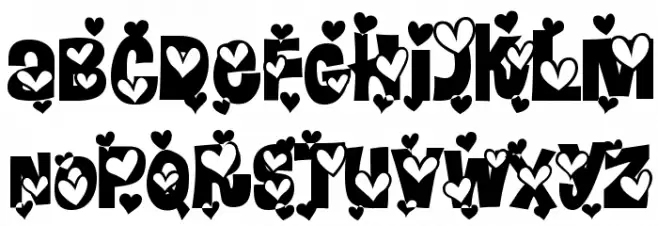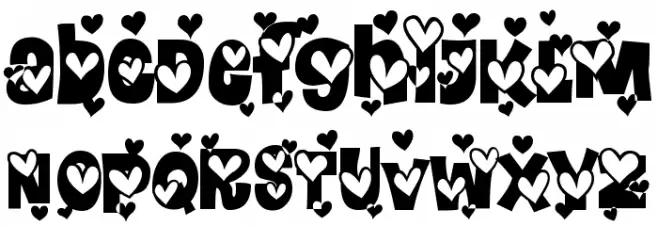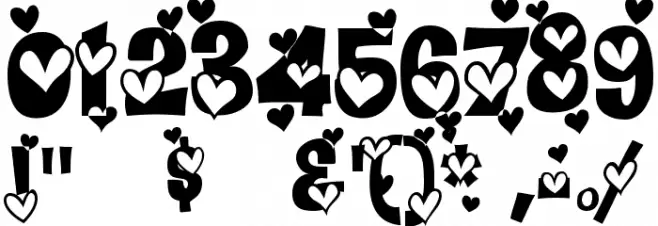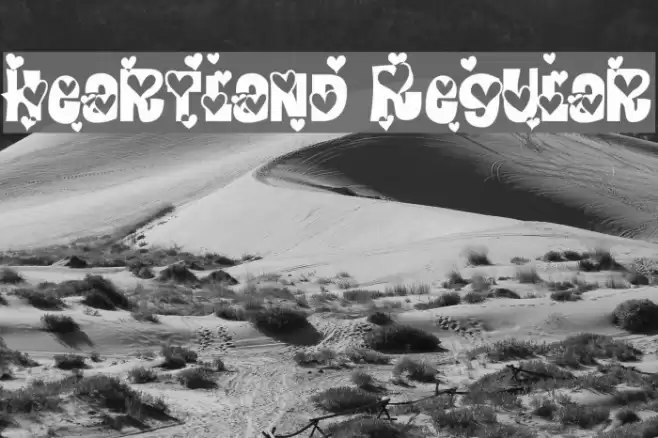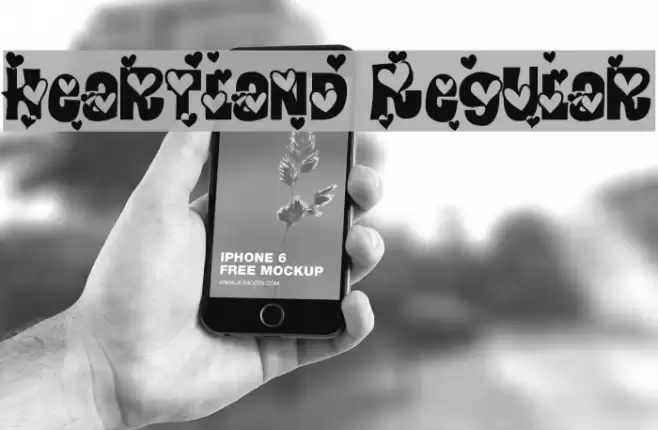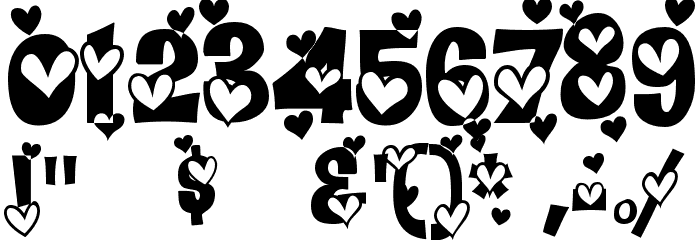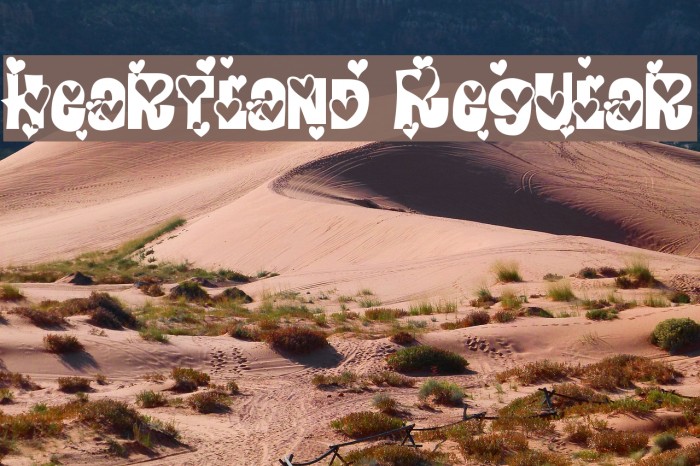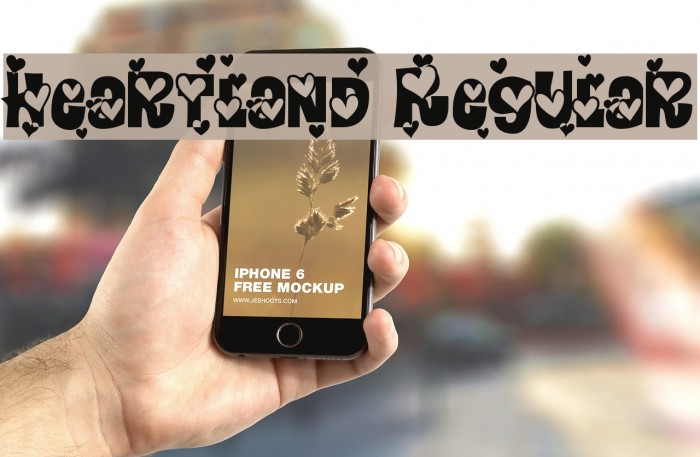
Heartland Regular Font
Heartland Regular Description
This playful and decorative font features bold, chunky letters adorned with heart shapes, making it ideal for designs that require a touch of whimsy and romance. Each character is uniquely styled with heart motifs, either embedded within the letterforms or as accents, creating a cohesive and charming appearance. The font maintains a consistent weight throughout, ensuring readability while still offering a distinctive and eye-catching look. Its bold presence makes it suitable for attention-grabbing headlines or themed projects. The heart embellishments add a layer of fun and creativity, perfect for Valentine's Day designs, wedding invitations, or any project that seeks to convey love and affection.
A bold, decorative font with heart motifs, perfect for romantic and playful designs.
- Proposed Projects: Ideal for Valentine's Day cards, wedding invitations, love-themed posters, and playful branding.